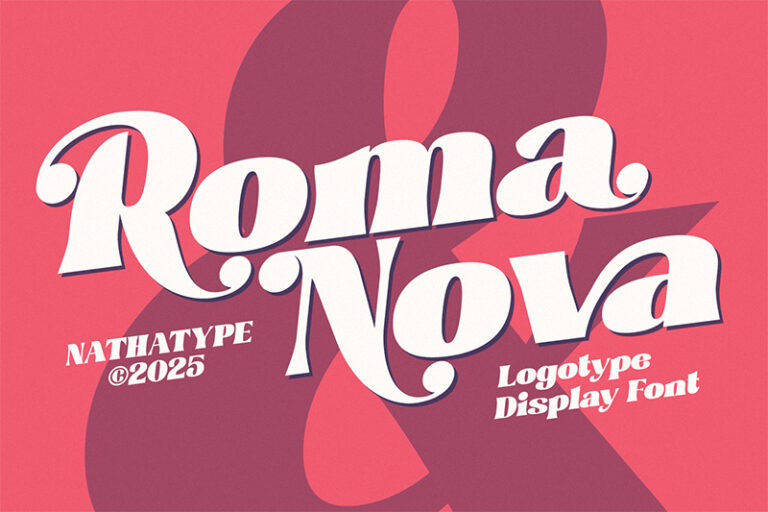
Royal Avail is a striking display font designed with a very thick weight. Its powerful structure and confident style create a commanding visual impact, ensuring your message stands out instantly in any design context. Crafted with precision, Roma Nova shows clearly visible contrast between thick and thin strokes, giving each character a dynamic and expressive appearance. This sophisticated contrast adds depth and elegance, blending modern typography with timeless display aesthetics. In addition, enjoy the features here.
- Ligatures
- Stylistic Sets
- Multilingual Supports
- PUA Encoded
- Numerals and Punctuations
Royal Avail fits in branding, quotes, invitations, logos, posters, and many more designs. Find out more ways to use this font by taking a look at the font preview.